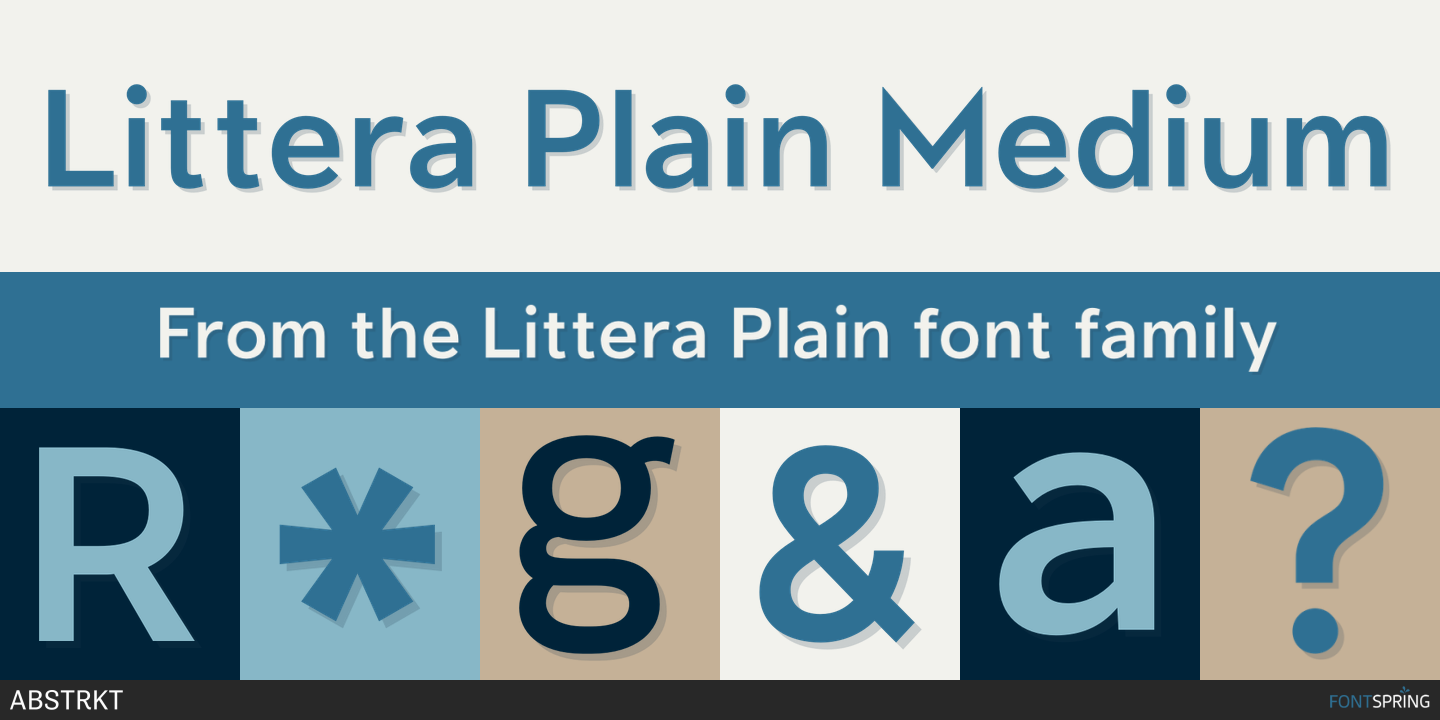
Littera Plain Medium
Designed by Abstrkt Design Team, Littera Plain is a sans serif font family. This typeface has five styles and was published by ABSTRKT.
Littera is inspired by one of the most widespread Soviet sans serifs — the Text Book typeface. Not exactly a revival, it is rather an interpretation of its typographic feel executed in two different ways: Littera Plain and Littera Text.